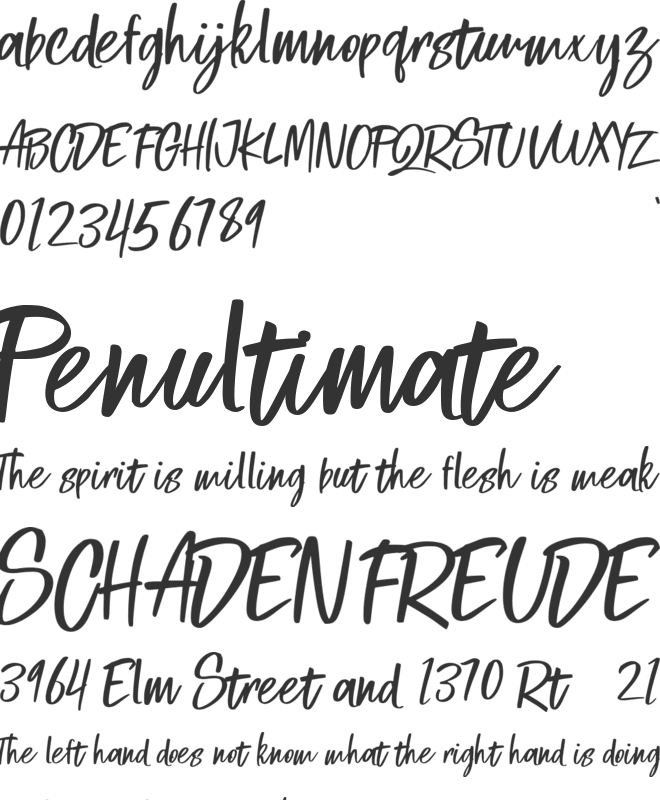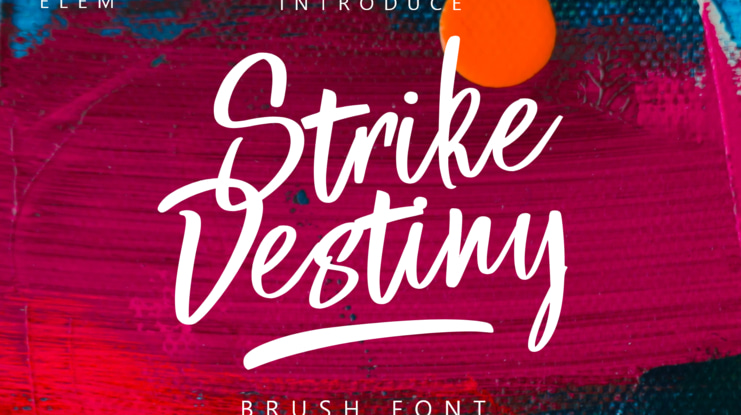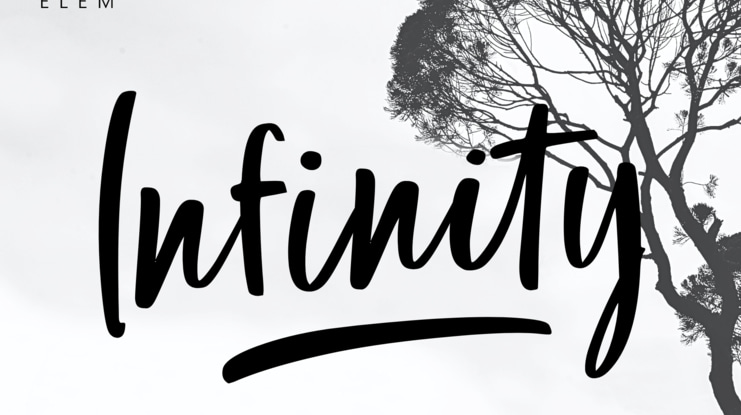
Strike Destiny Font
Introducing the Strike Destiny Font, handcrafted brush fonts! A bold, free-flowing and confident brush font.
Strike Destiny is a script font with a stroke style.This font is suitable for use from handwritten quotes, to product packaging, merchandise and branding projects. Here is a link to purchase a Full Version and Commercial License: